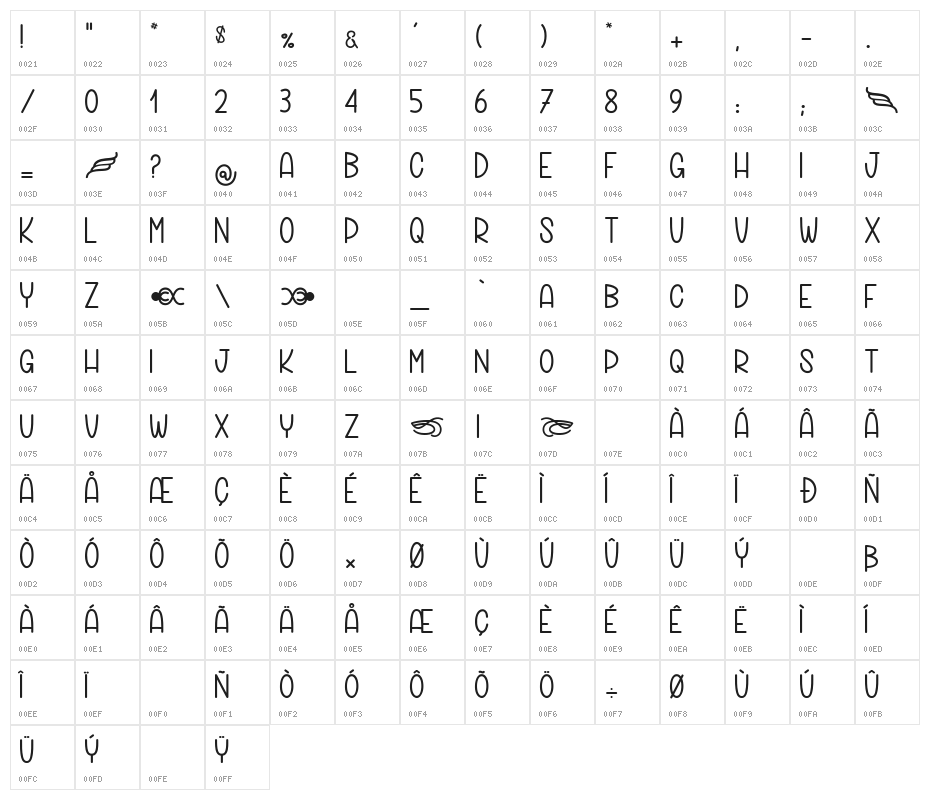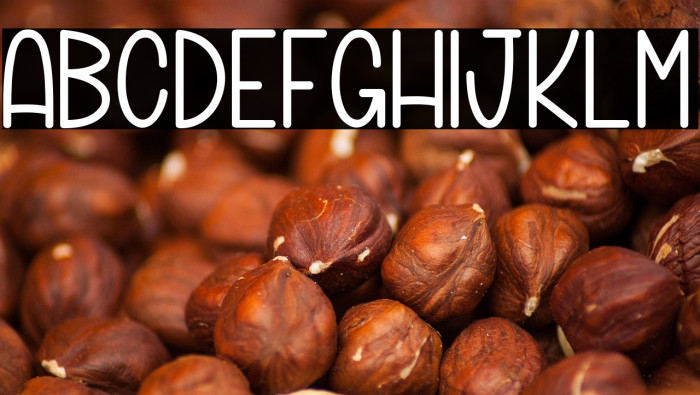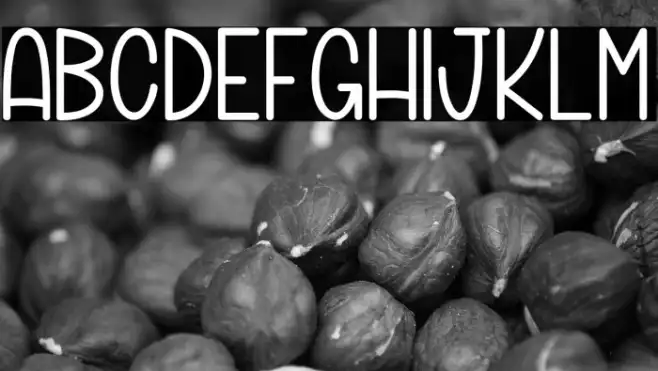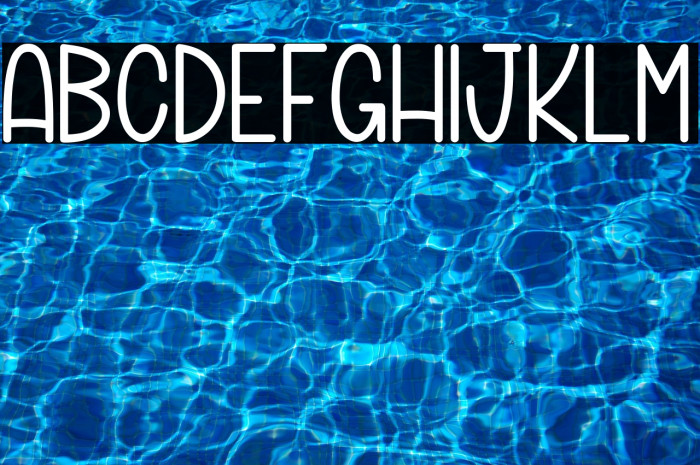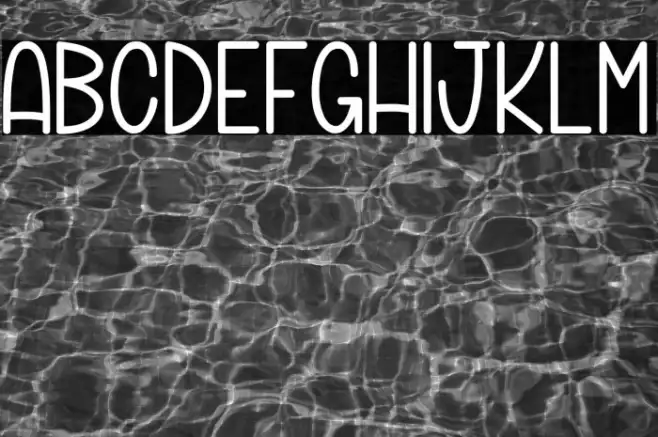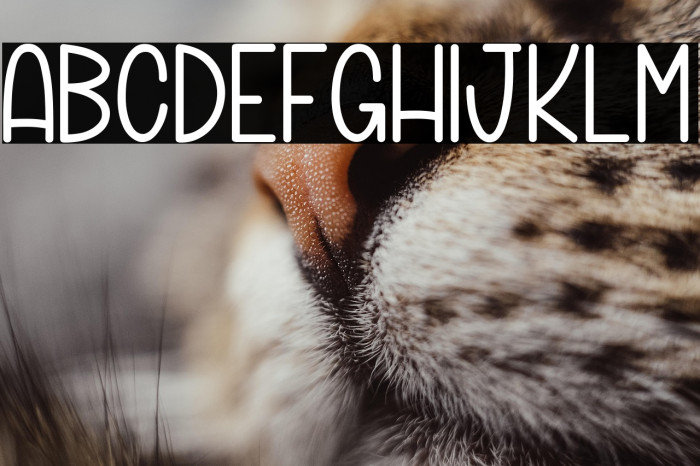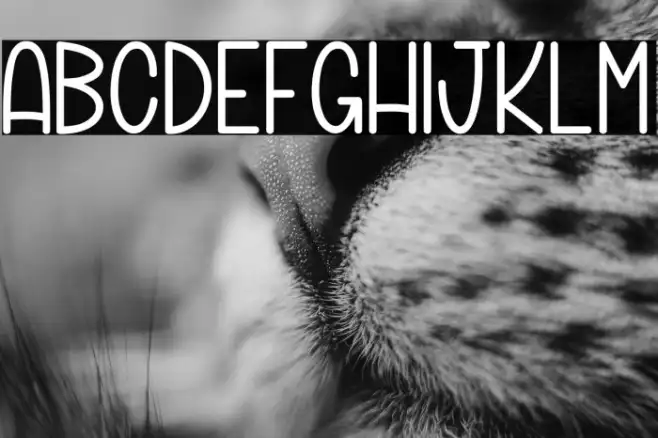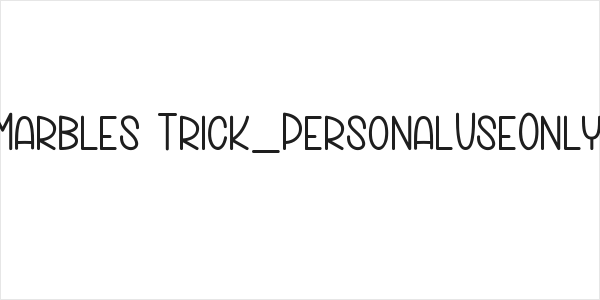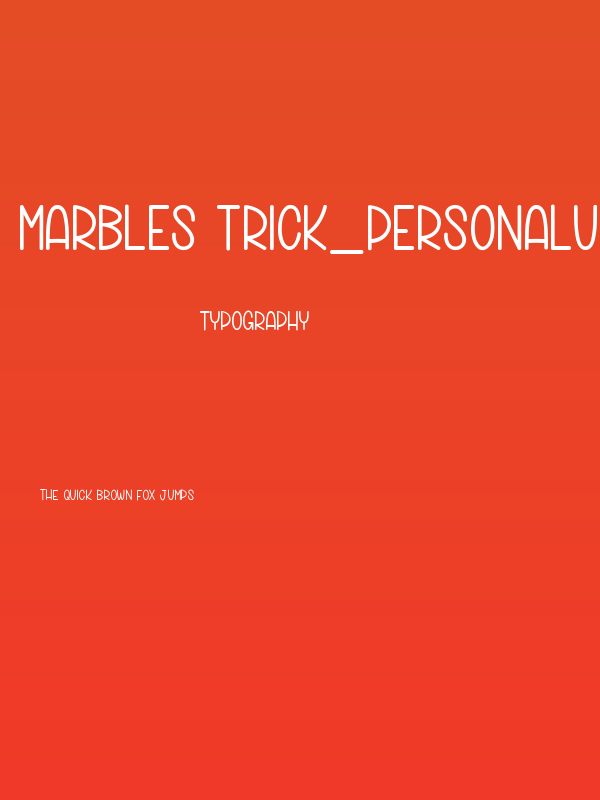
Marbles Trick_PersonalUseOnly Font
Marbles Trick_PersonalUseOnly Description
This playful and whimsical font features rounded, smooth edges with a hand-drawn aesthetic. The characters are tall and slightly narrow, giving a sense of height and elegance while maintaining a casual and friendly appearance. The consistent stroke width throughout the characters adds to its simplicity and readability. The font includes a full set of uppercase and lowercase letters, numbers, and a variety of special characters, making it versatile for different uses. Its informal style is perfect for projects that require a touch of personality and fun.
| Proposed Projects | Ideal for children's books, greeting cards, playful branding, and social media graphics. |